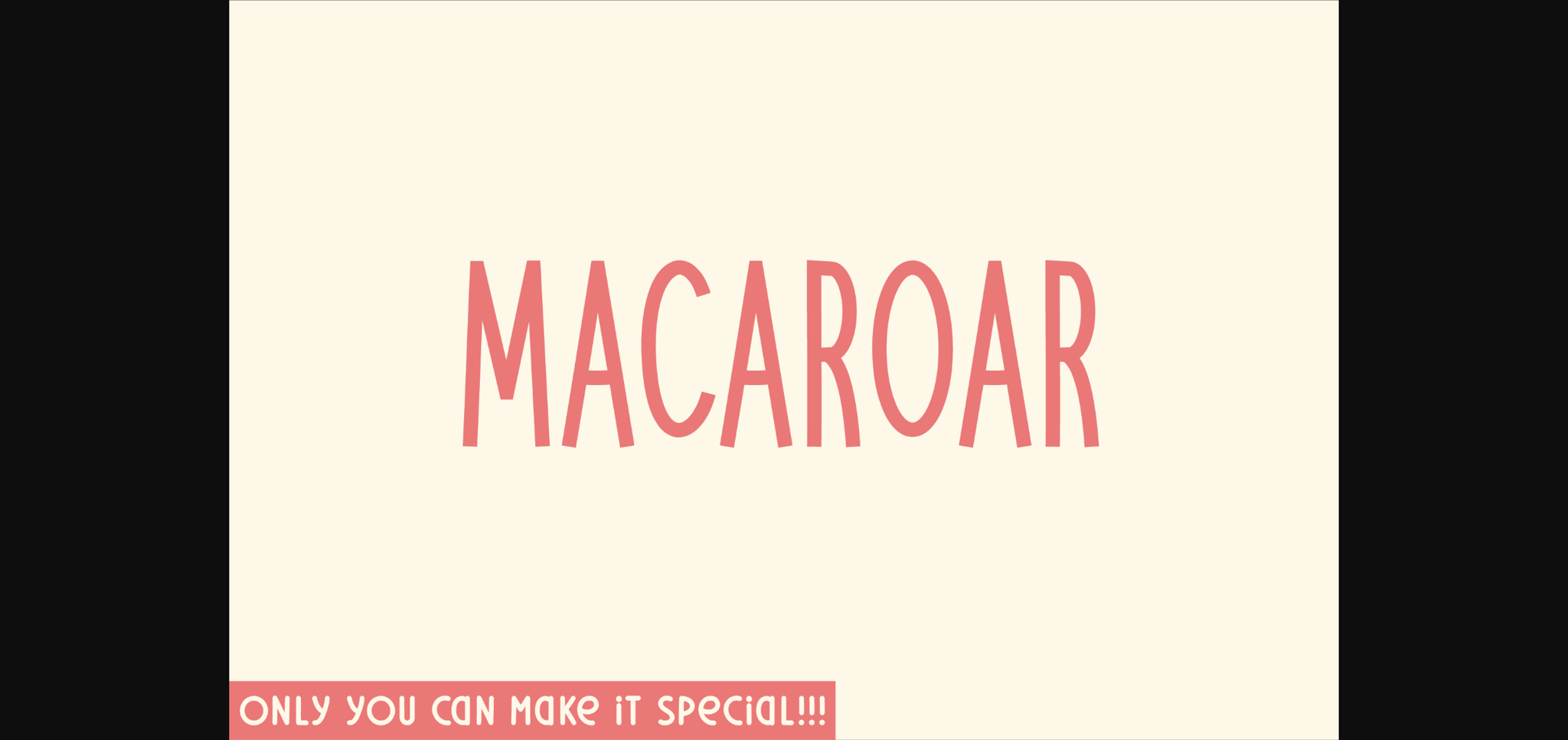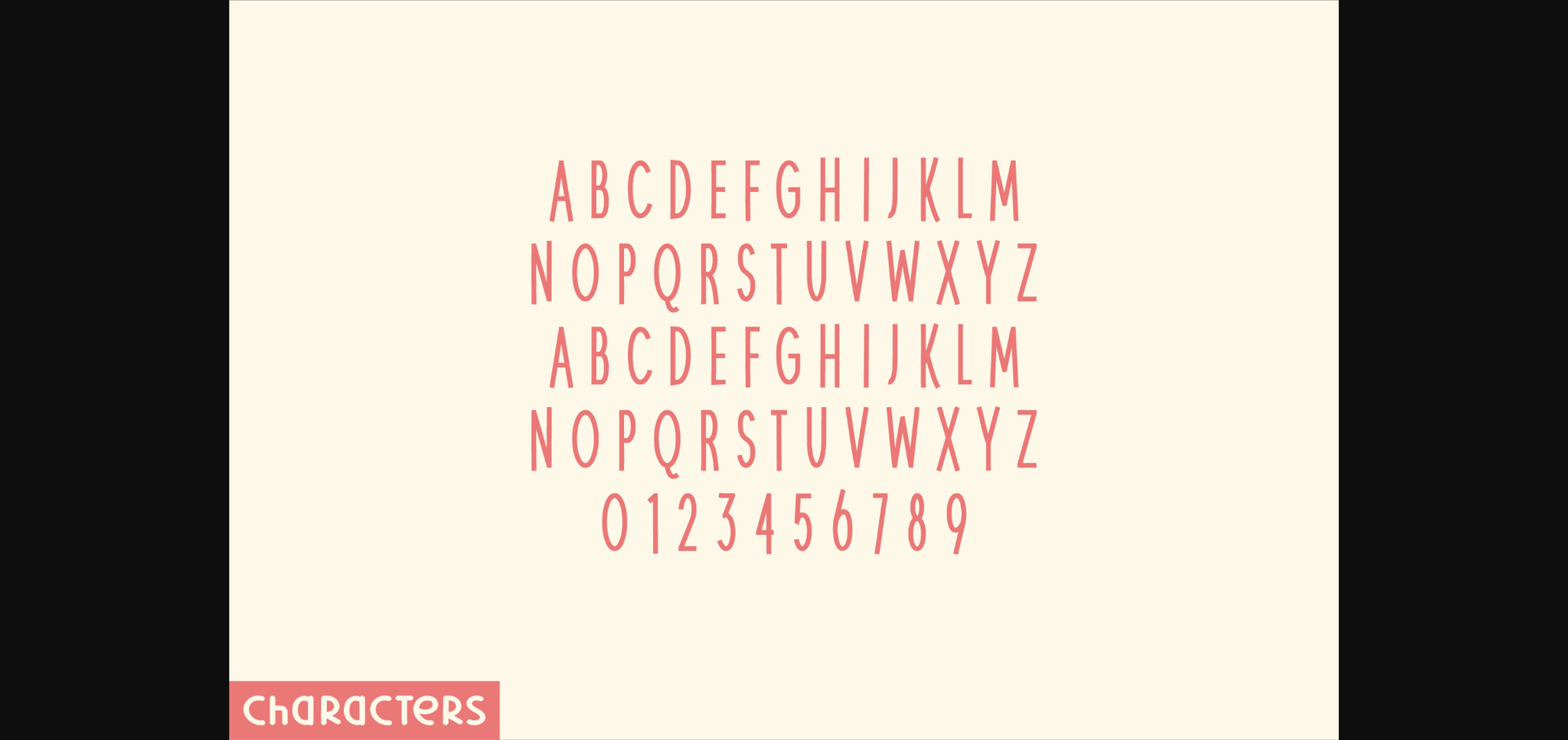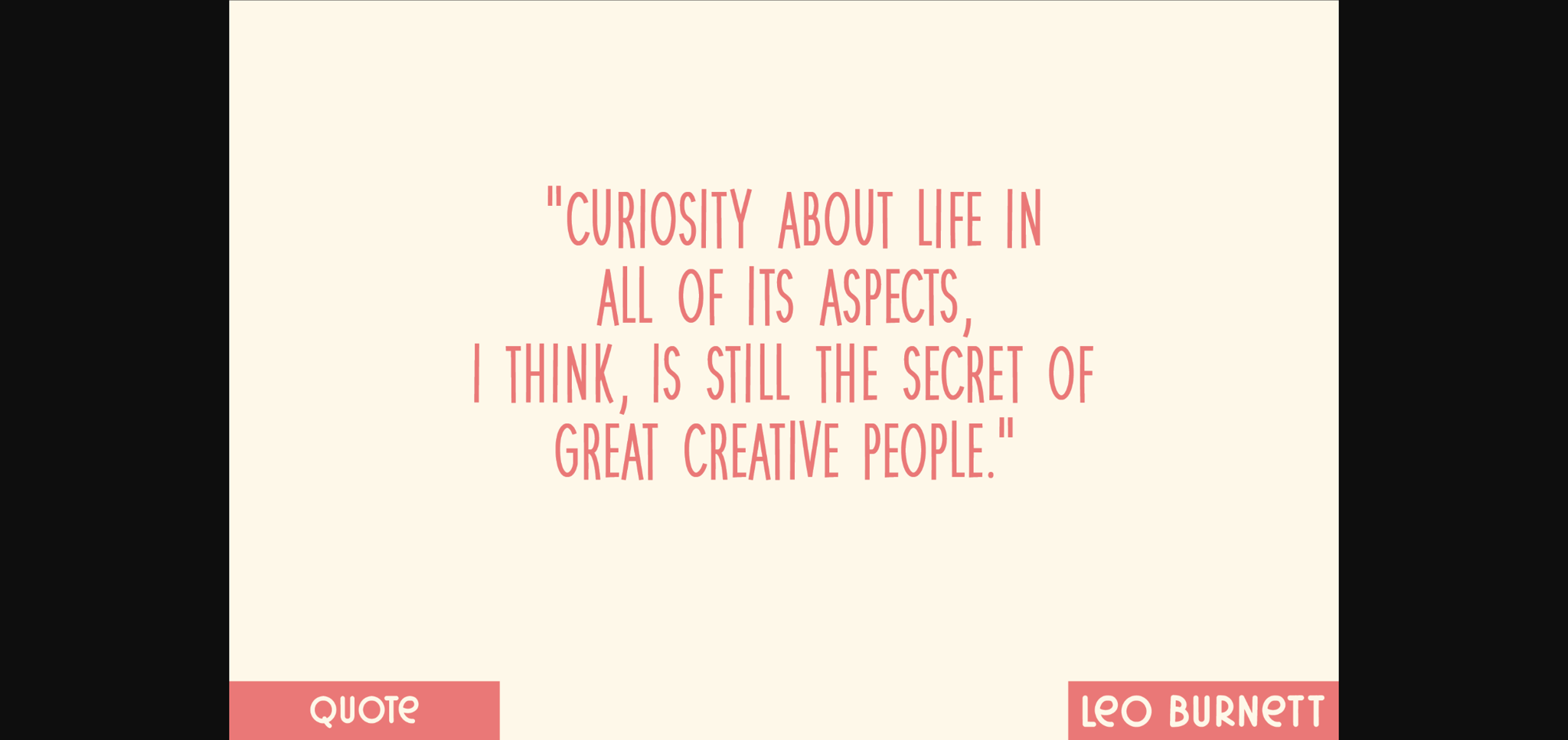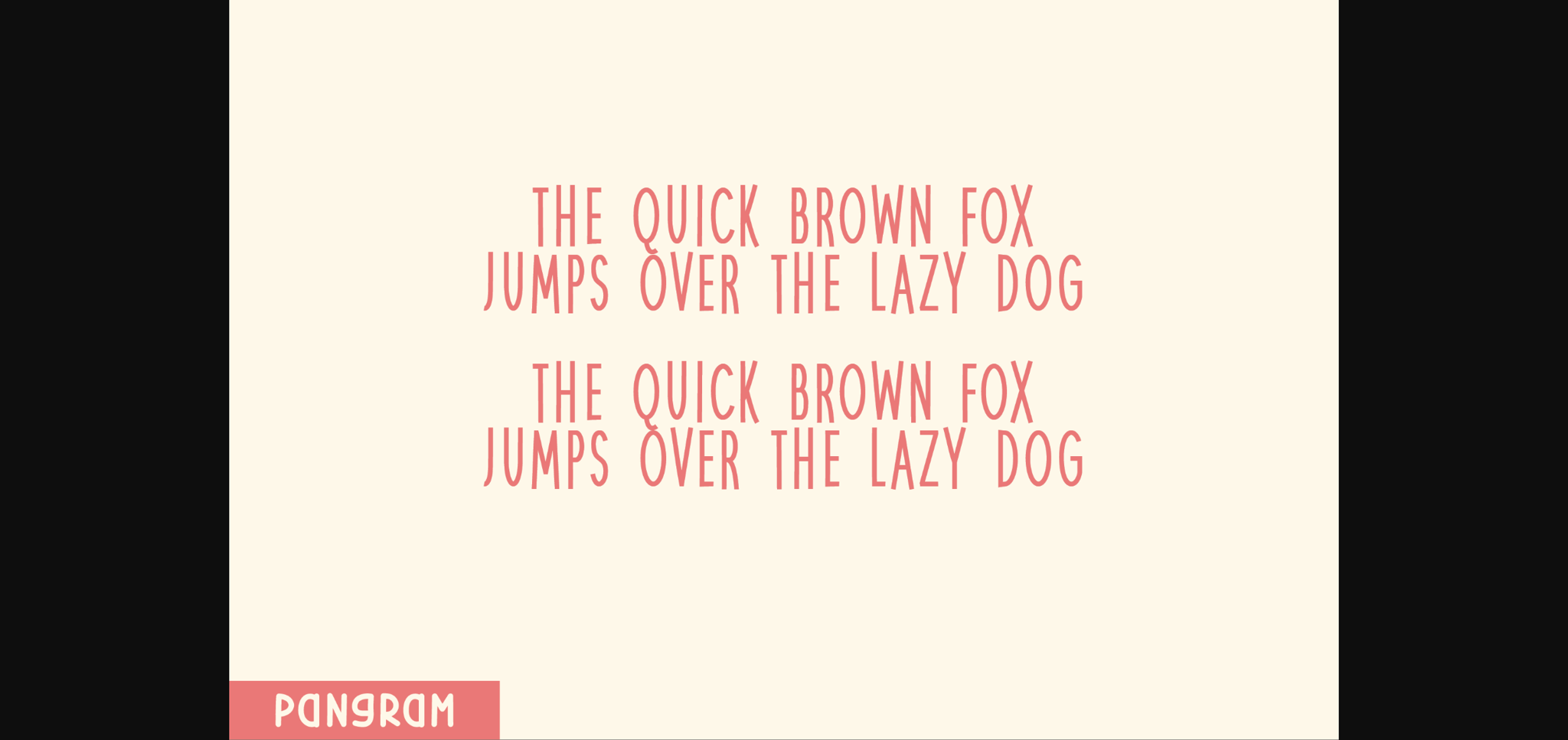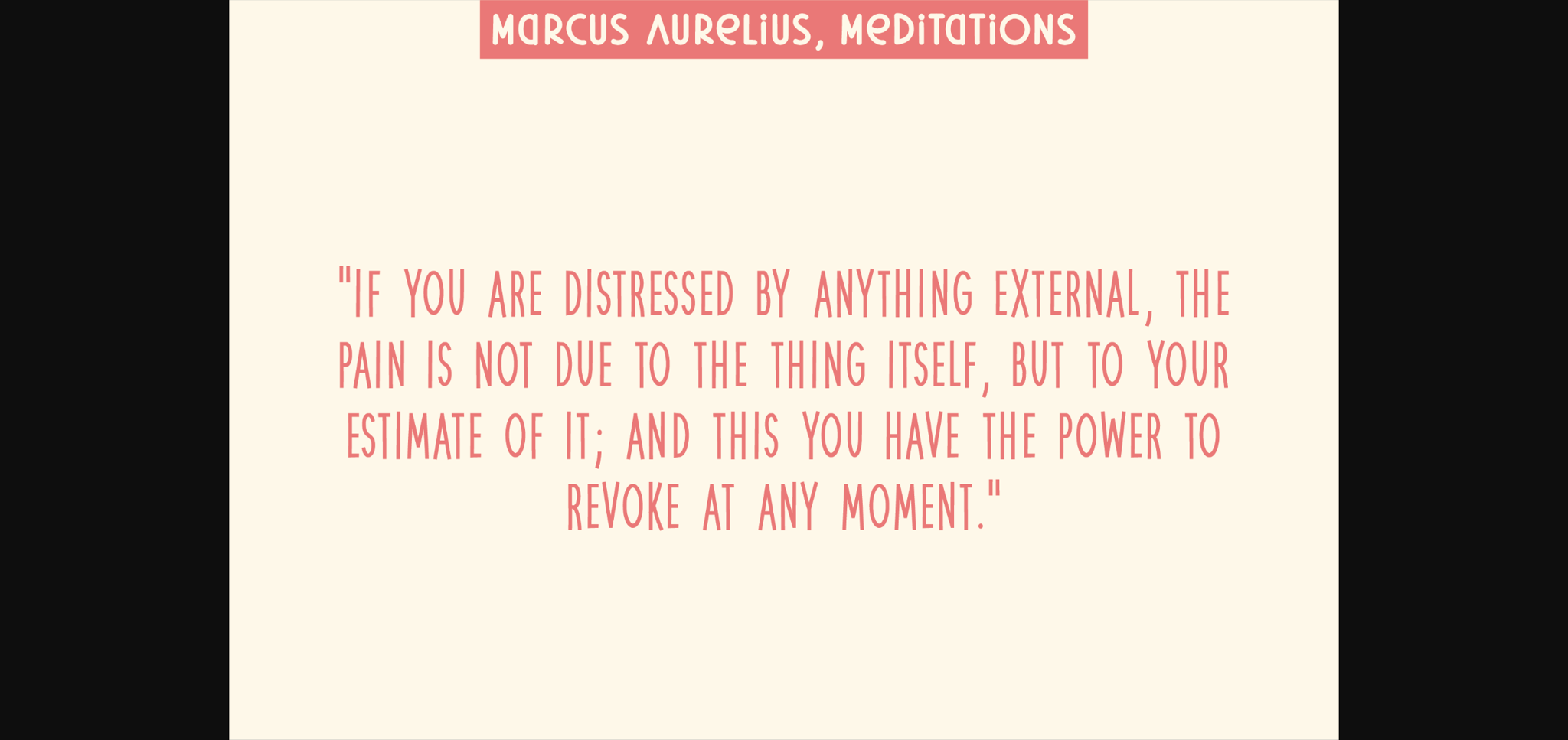
About Macaroar Font
Macaroar leaps off the page as a striking sans-serif display font emanating distinctive sophistication. This unique typeface effortlessly fuses the balance and efficiency of uppercase lettering and numerical functions with an intriguing handwriting persona. With precision-cut ends to each letter, Macaroar stands firm yet unforced, offering the allure of handcrafted strokes in a digital world. It’s the go-to choice for designers striving to inject a sense of authentic charm in their work. Experience Macaroar and let your designs breathe with a natural vibe.